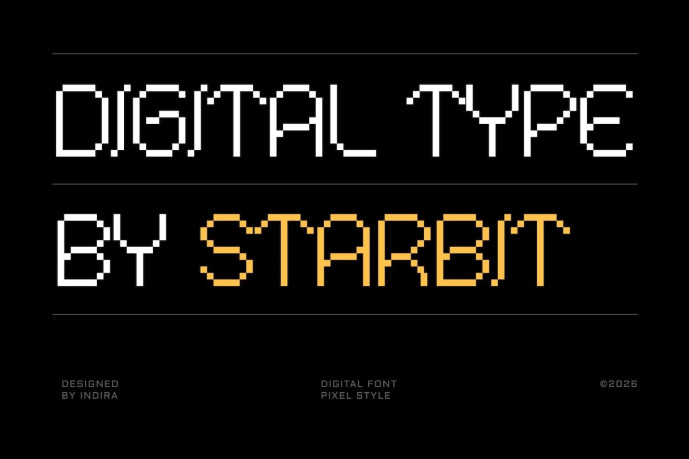
Starbit Pixel Font
Starbit Pixel Font is a unique pixel font that reimagines retro gaming visuals with a playful and creative edge. Built with a distinctive bitmap style that combines solid and outlined forms, this display font brings a fresh twist to classic arcade aesthetics. Its character design feels lively and experimental, making it perfect for game titles, platformer themes, UI elements, and nostalgic visuals that still want to stand out in a modern digital space.
Designed for creators in the gaming world, Starbit delivers more than just retro vibes—it creates an engaging visual experience. Whether you’re developing indie games, crafting streaming overlays, building coding-themed graphics, or designing tech-inspired branding, this font adds a strong pixel fonts identity with personality. With its fun structure and arcade spirit, Starbit helps turn every design into something interactive, memorable, and full of gaming energy.